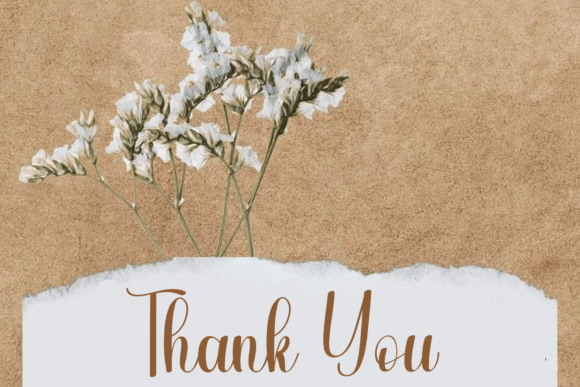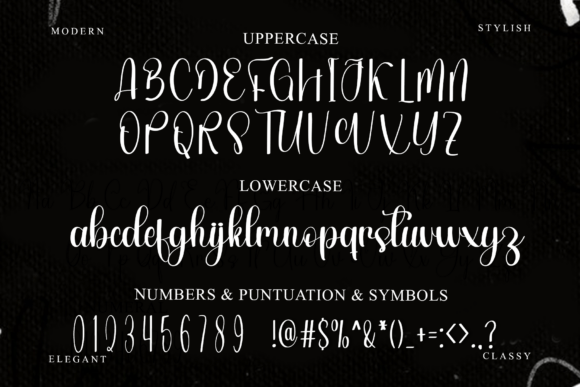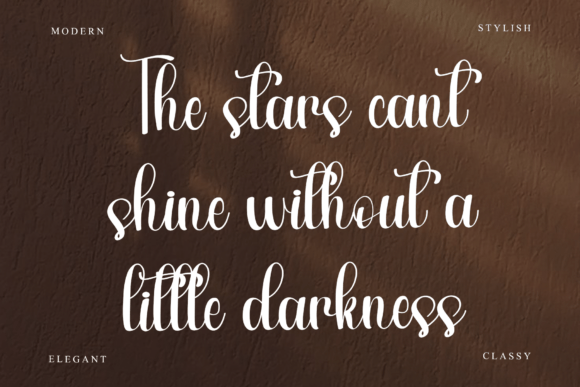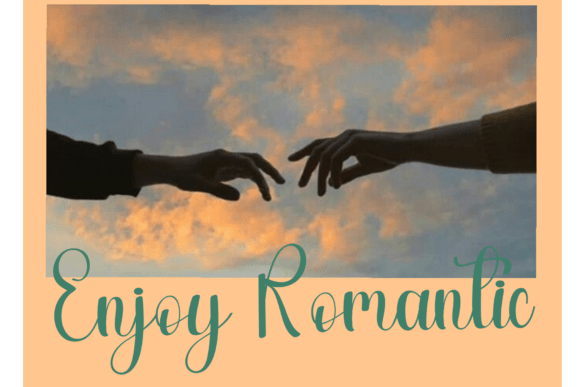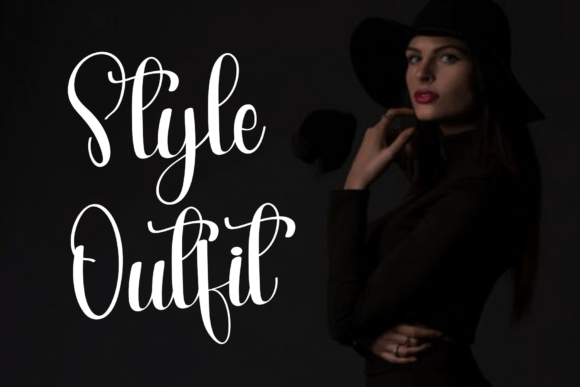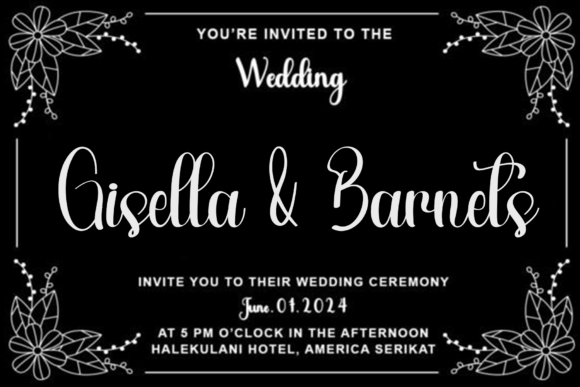
Crafting Font: The Perfect Choice for Creative Projects
Are you a designer, crafter, or DIY enthusiast looking for a font that embodies warmth, friendliness, and creativity? Look no further than Crafting Font! This casual and creative font is designed to bring a relaxed and approachable feel to your personal projects, invitations, social media graphics, and more.
The Characteristics of Crafting Font
Crafting Font is distinguished by its round, playful strokes that create a charming and hand-drawn aesthetic. The font’s unique character is perfect for adding a fun and unique touch to any design. Whether you’re creating a birthday invitation, a social media post, or a blog graphic, Crafting Font is sure to make your project stand out.
Perfect for Personal Projects
One of the best things about Crafting Font is its versatility. It’s perfect for a wide range of personal projects, from DIY tutorials to handmade product labels. The font’s casual and creative vibe makes it an excellent choice for crafters, makers, and small business owners who want to add a personal touch to their branding.
Invitations and Social Media Graphics
Crafting Font is also an excellent choice for creating invitations, social media graphics, and other visual content. The font’s playful and friendly feel makes it perfect for birthday parties, baby showers, and other celebrations. With Crafting Font, you can create eye-catching and engaging graphics that will grab the attention of your audience.
Benefits for Designers
For designers, Crafting Font offers a range of benefits. The font’s unique and charming aesthetic can add a fresh and creative touch to your designs. Plus, the font’s compatibility with a wide range of design applications makes it easy to incorporate into your workflow.
Tips for Using Crafting Font
Here are a few tips for using Crafting Font in your designs:
- Use Crafting Font for headings, titles, and other display text to add a playful and creative touch.
- Pair Crafting Font with other fonts to create a unique and eye-catching combination.
- Don’t be afraid to get creative and try new things – Crafting Font is all about having fun and expressing yourself!
In conclusion, Crafting Font is a versatile and creative font that’s perfect for designers, crafters, and DIY enthusiasts. Its charming and hand-drawn aesthetic adds a fun and unique touch to any design, making it an excellent choice for personal projects, invitations, social media graphics, and more. With its compatibility with a wide range of design applications and standard PUA Encoded glyphs, Crafting Font is an excellent addition to any design toolkit.